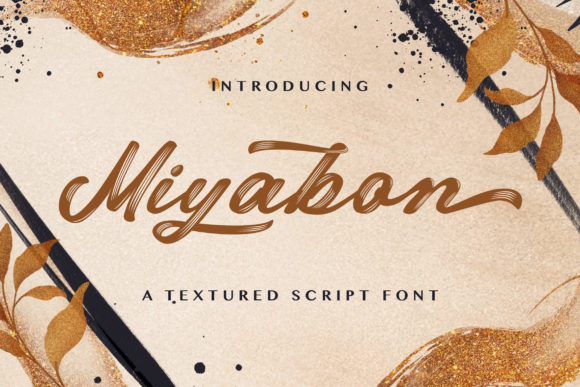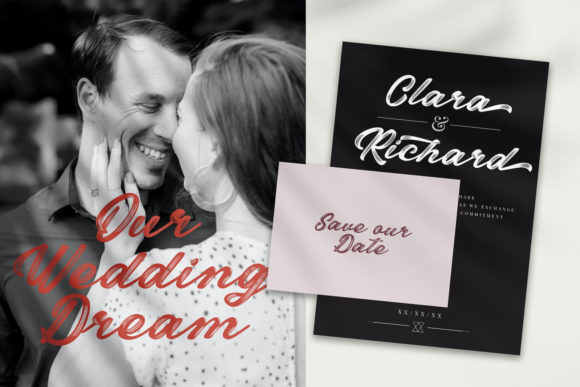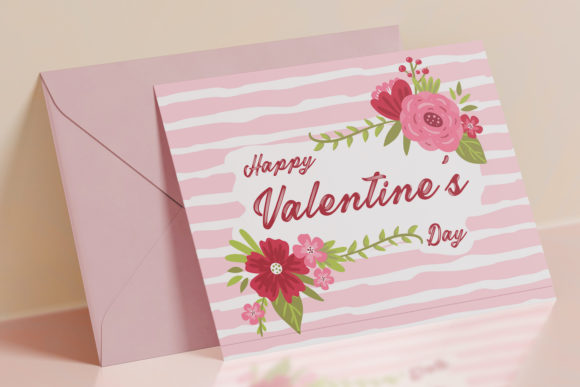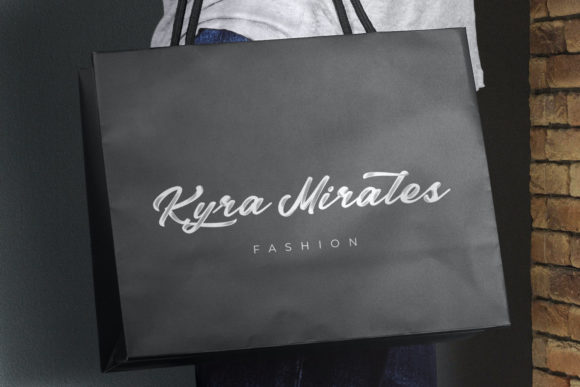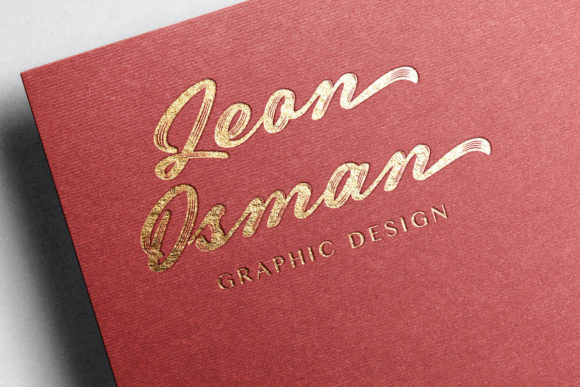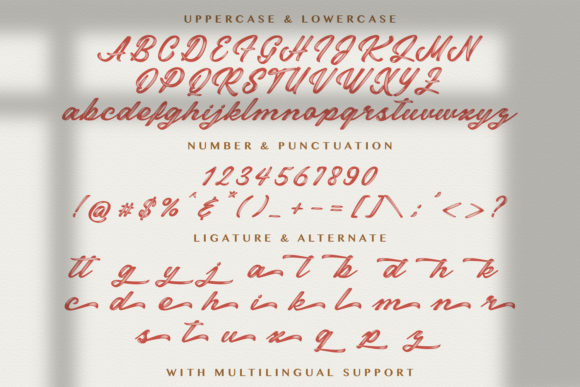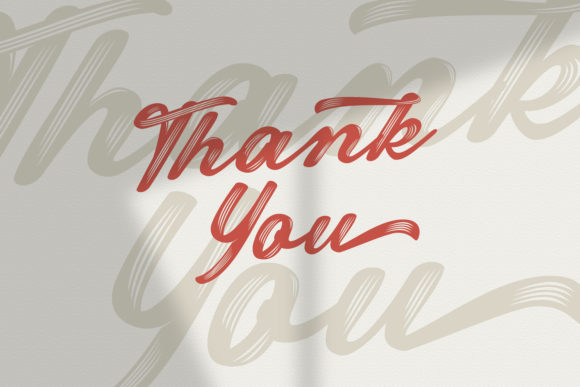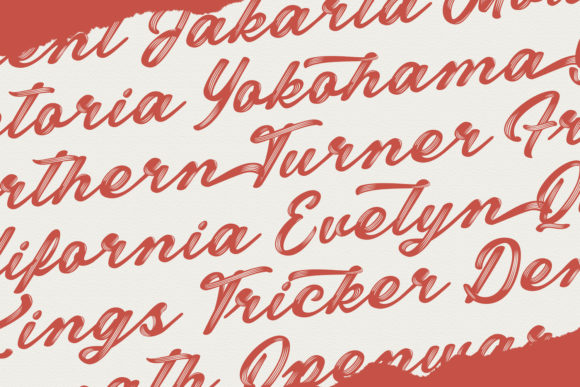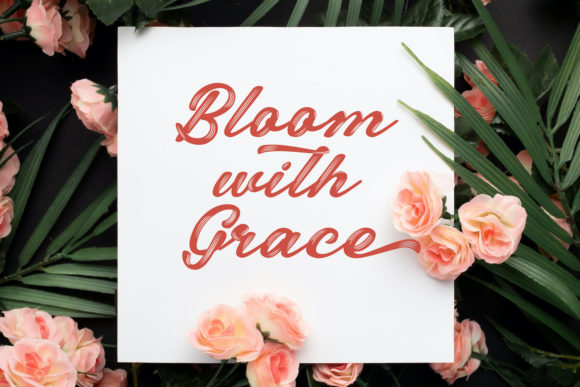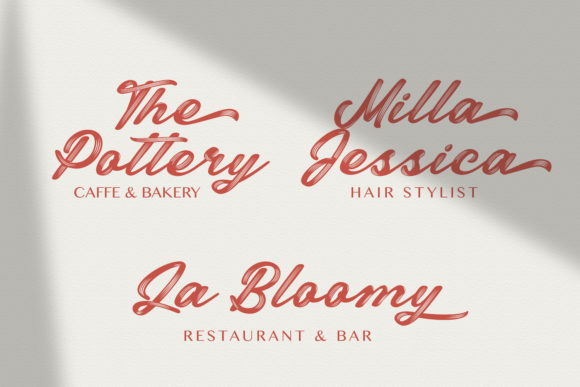
About Miyabon Font
Miyabon is a beautiful, brushed and cursive handwritten font. This font is PUA encoded which means you can access all of the beautiful glyphs and swashes with ease!